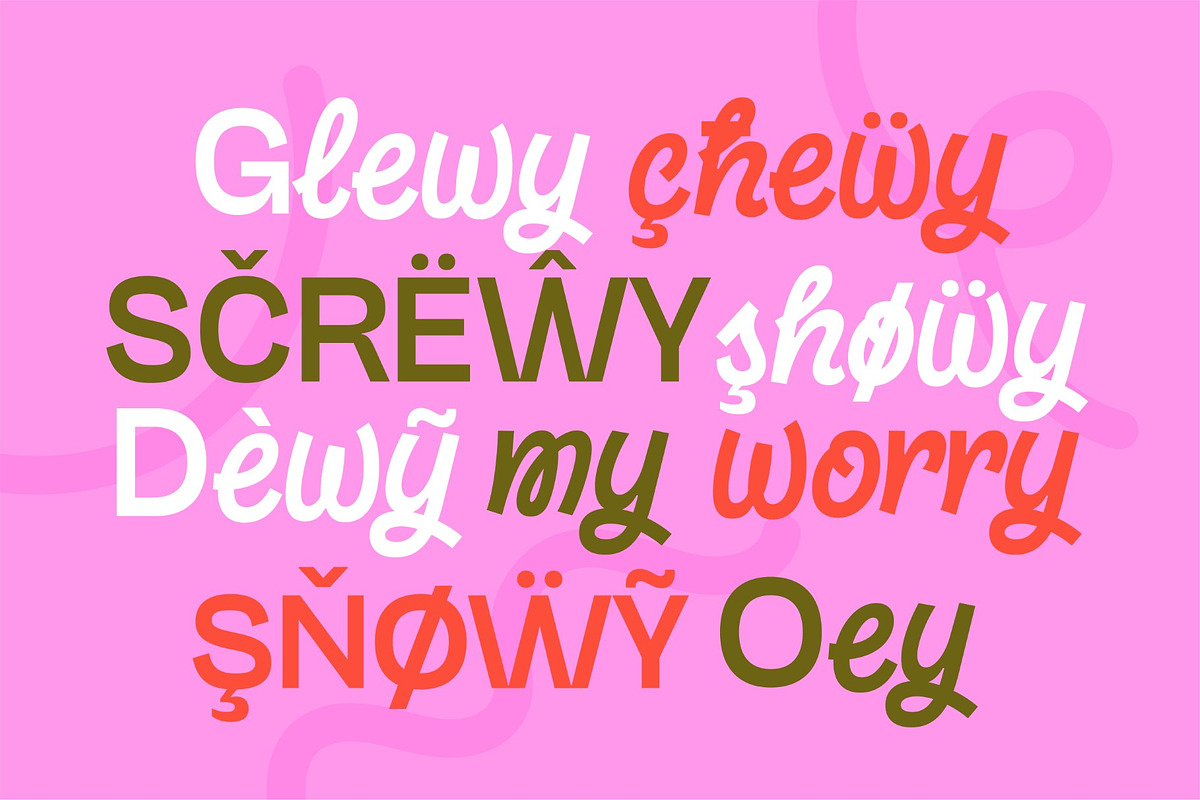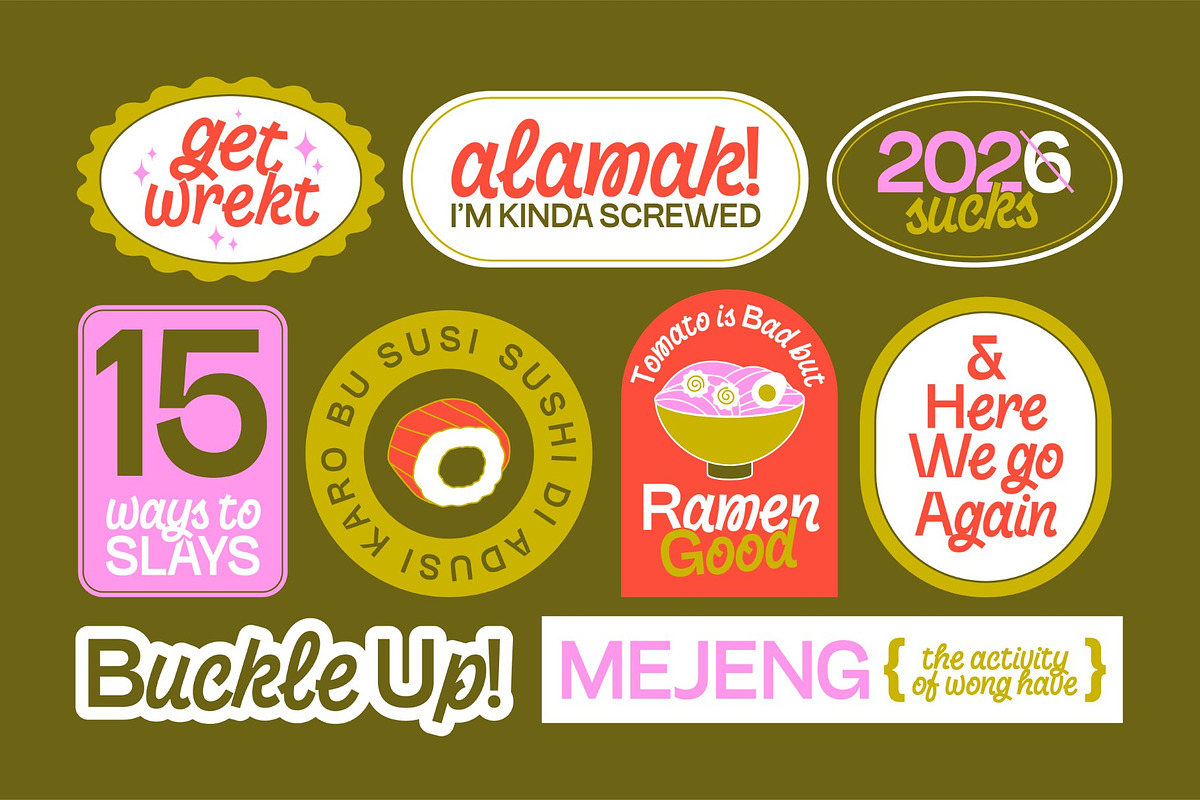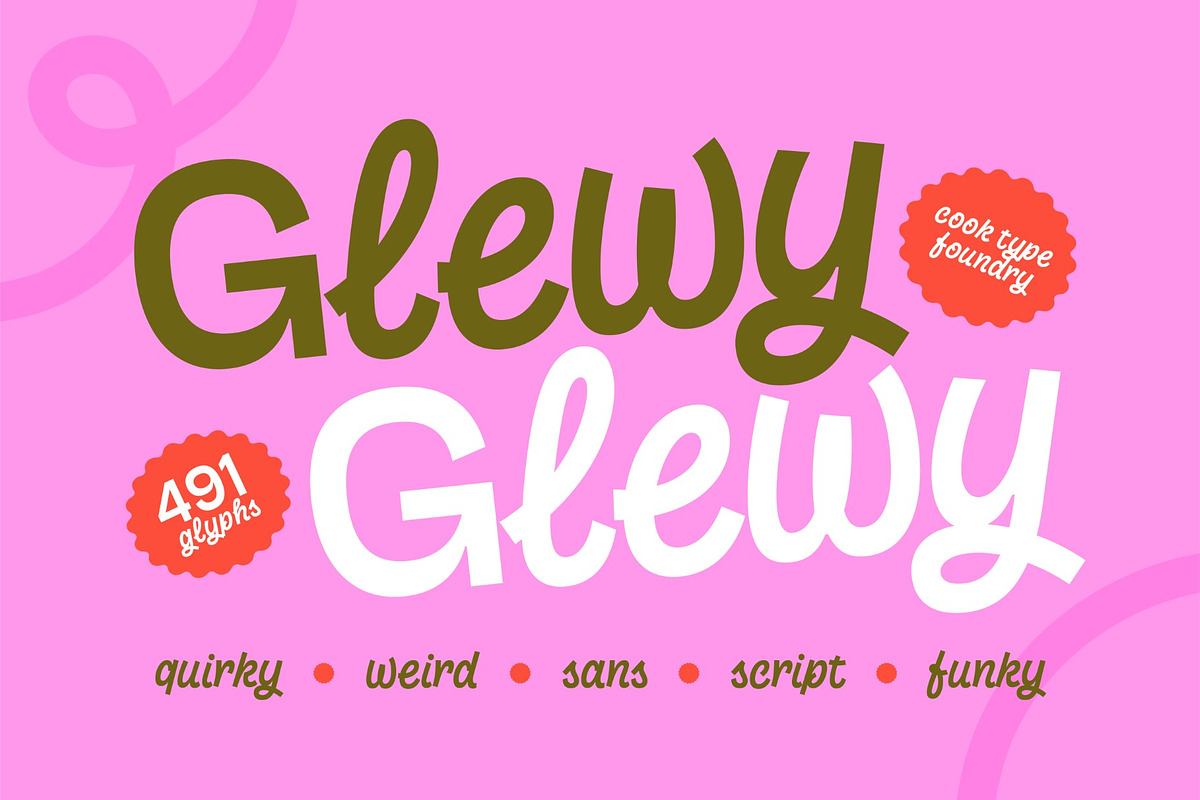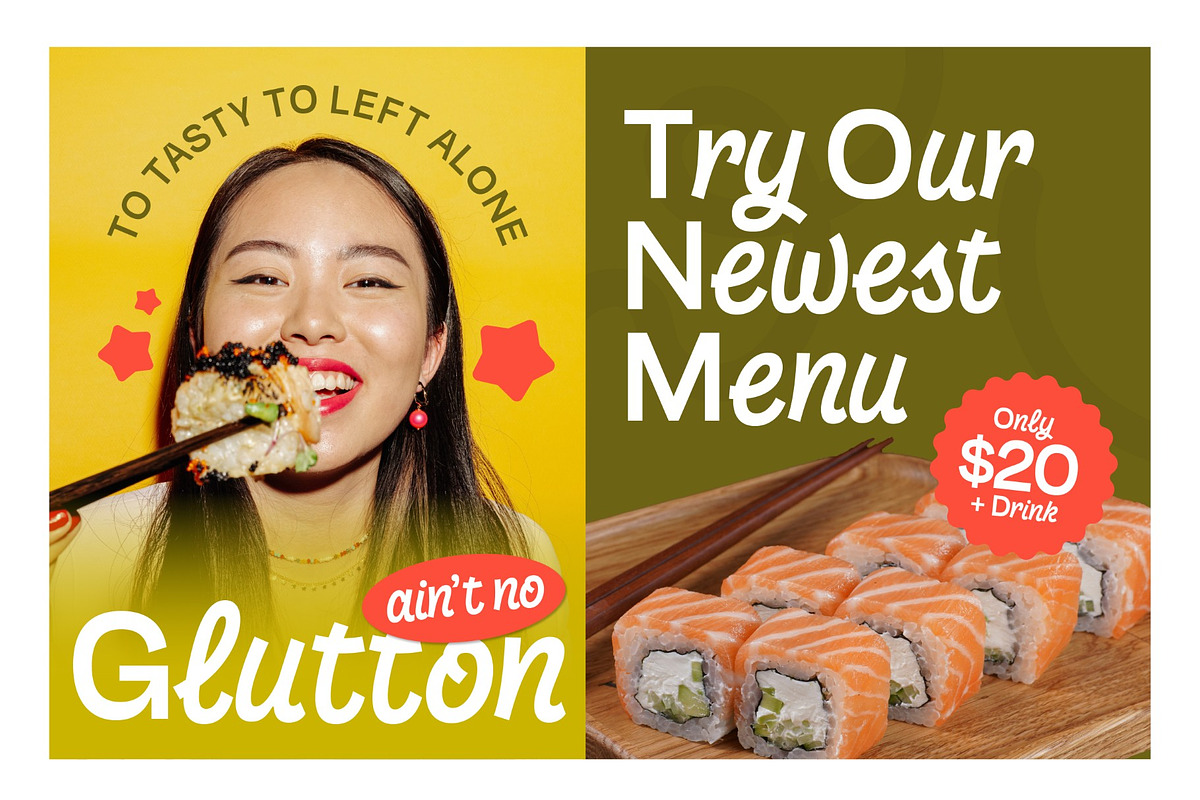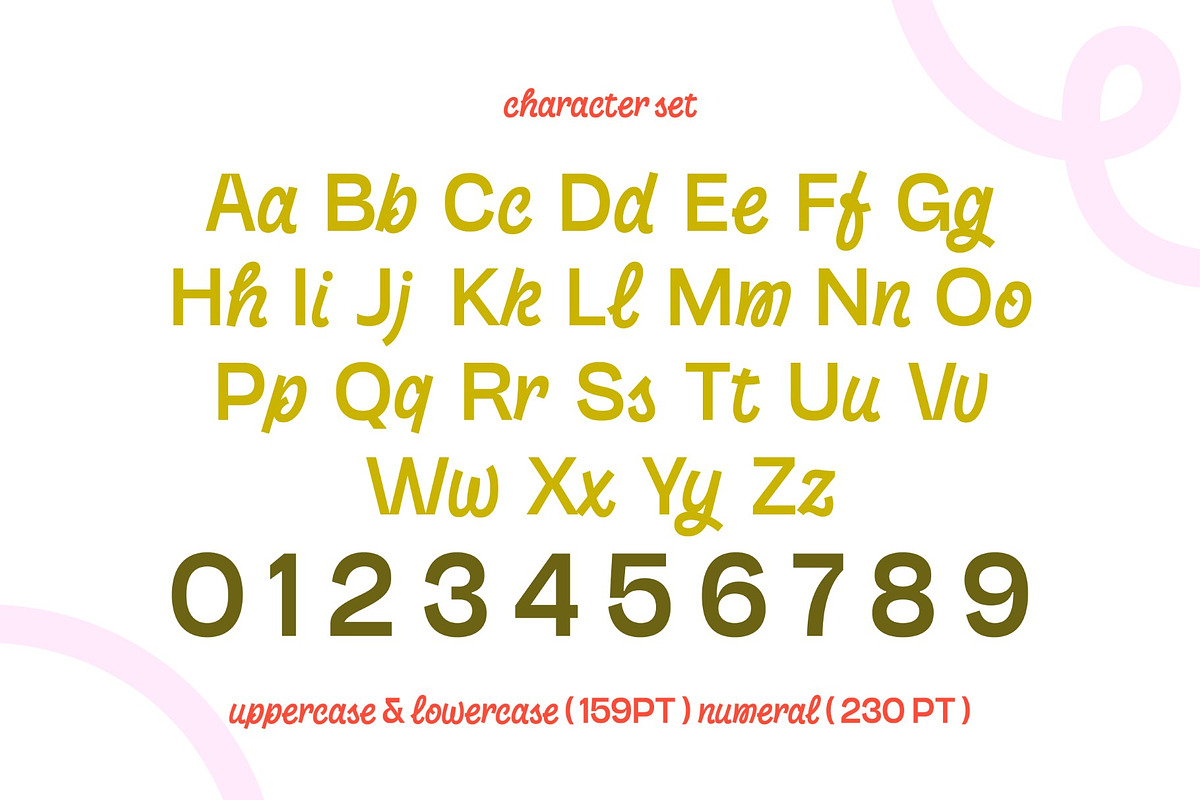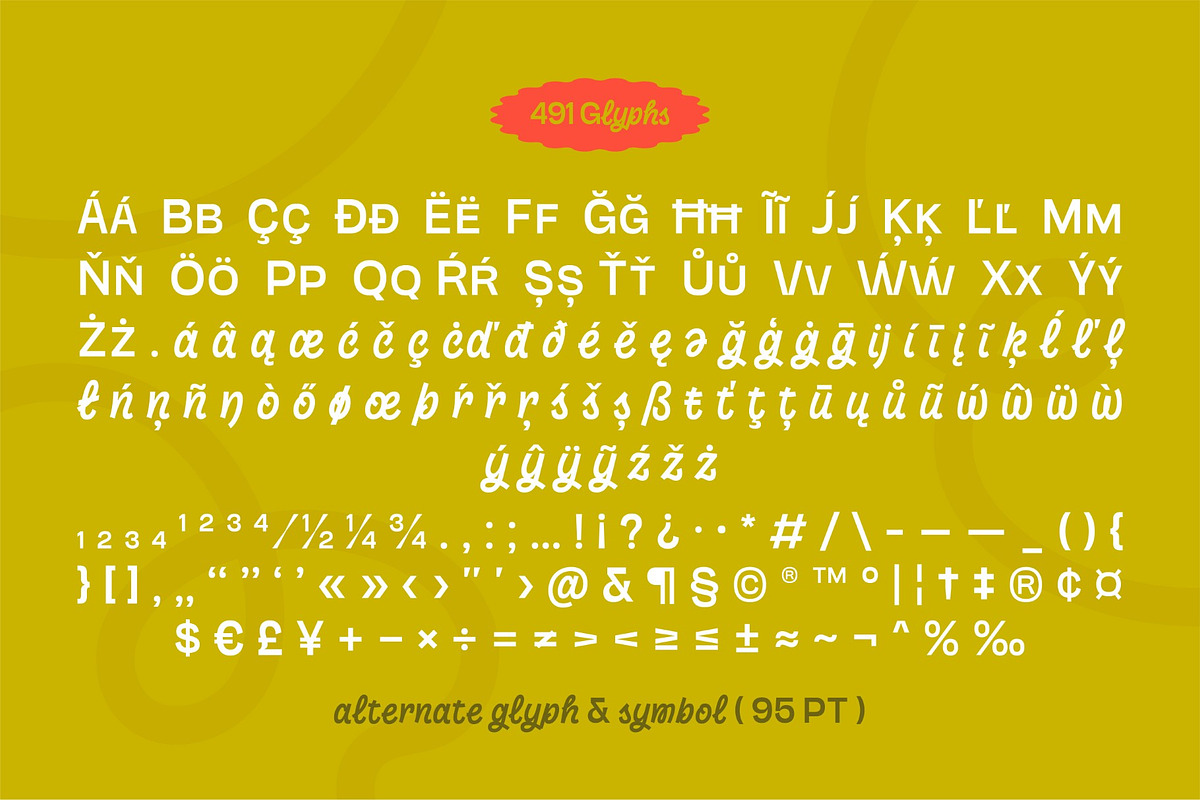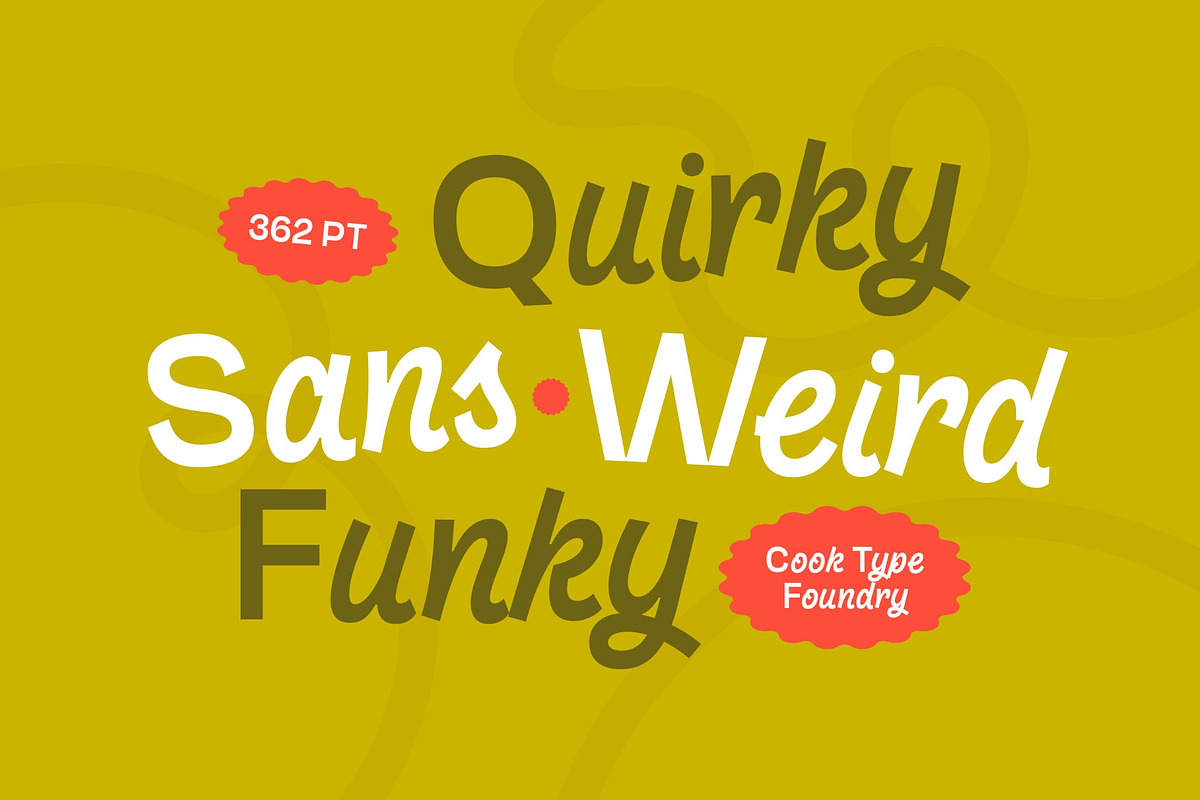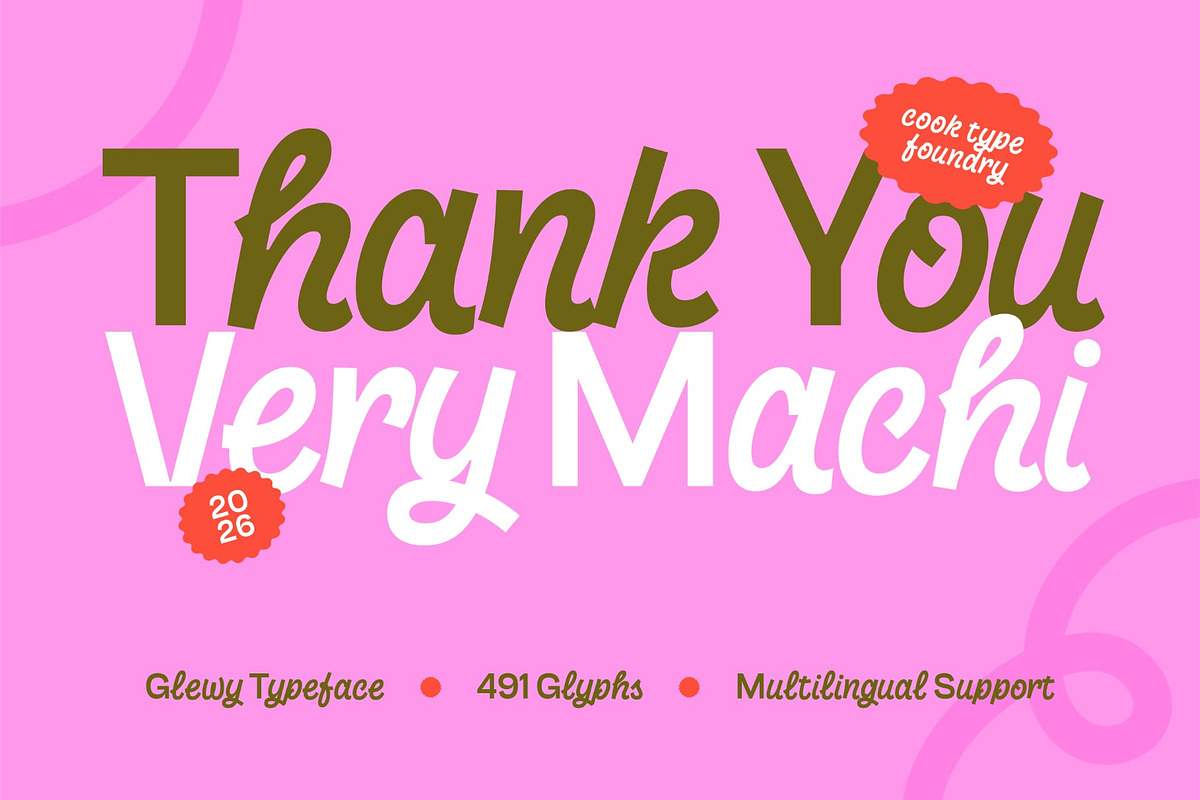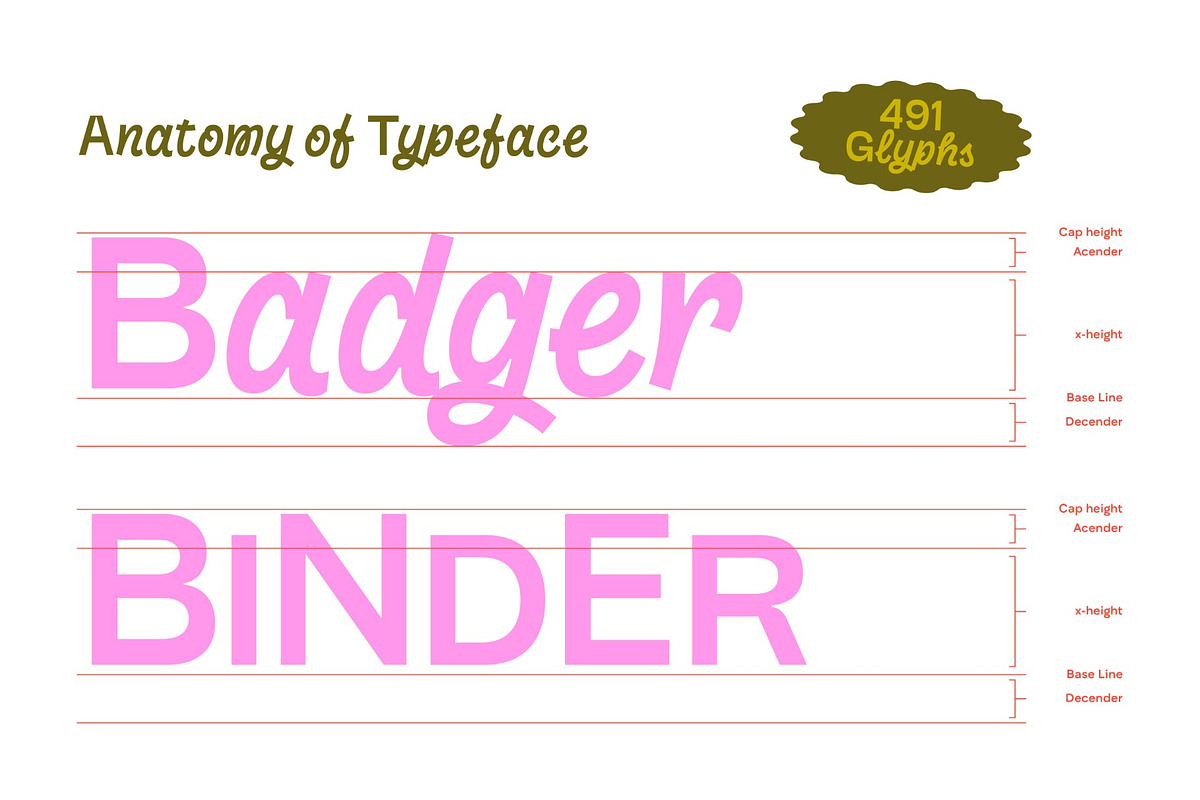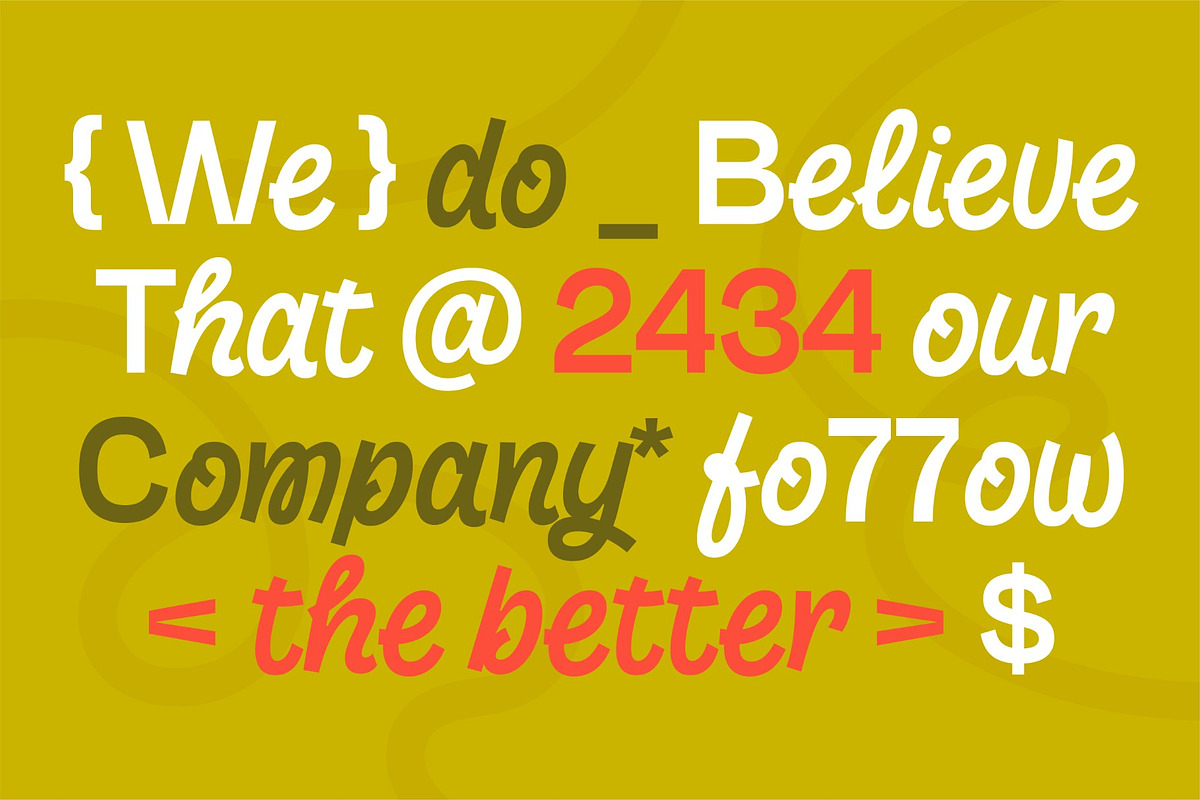
Glewy
Glewy is a quirky and playful hand-lettered display typeface with a bold, flowing style and distinctive irregular shapes. Its expressive letterforms combine a fun handwritten feel with a slightly weird and unconventional personality, making it perfect for designs that need to stand out.
It is perfect for headlines, logotypes, magazines, packaging, quotes, movies, games, cover albums, book covers, and flyers, it's a perfect solution for creating eye-catching designs that stand out in any context.